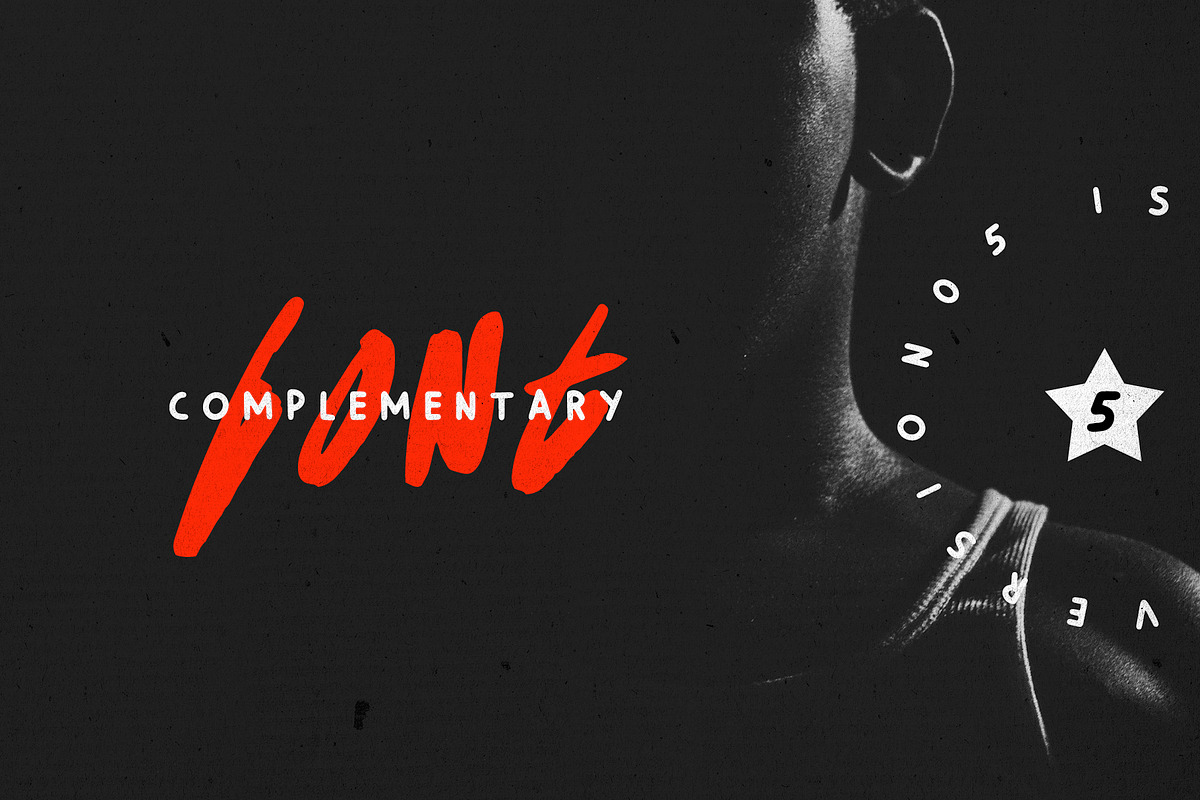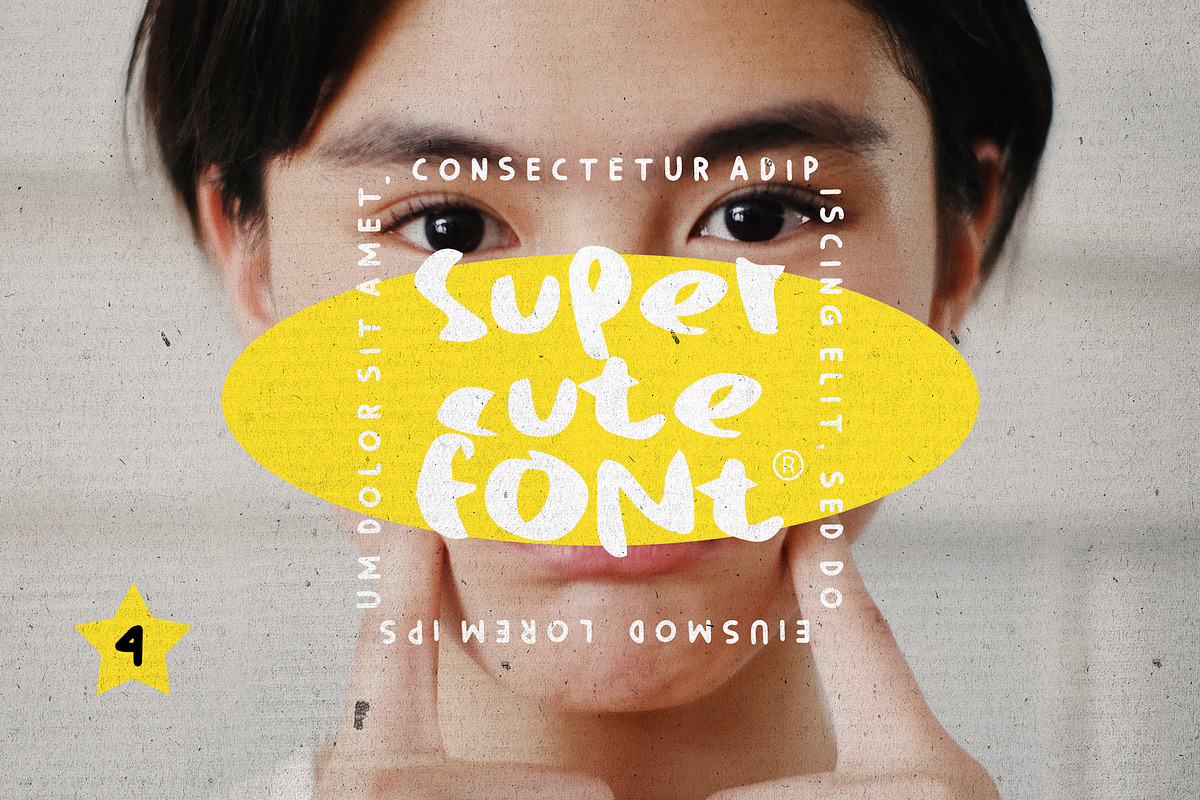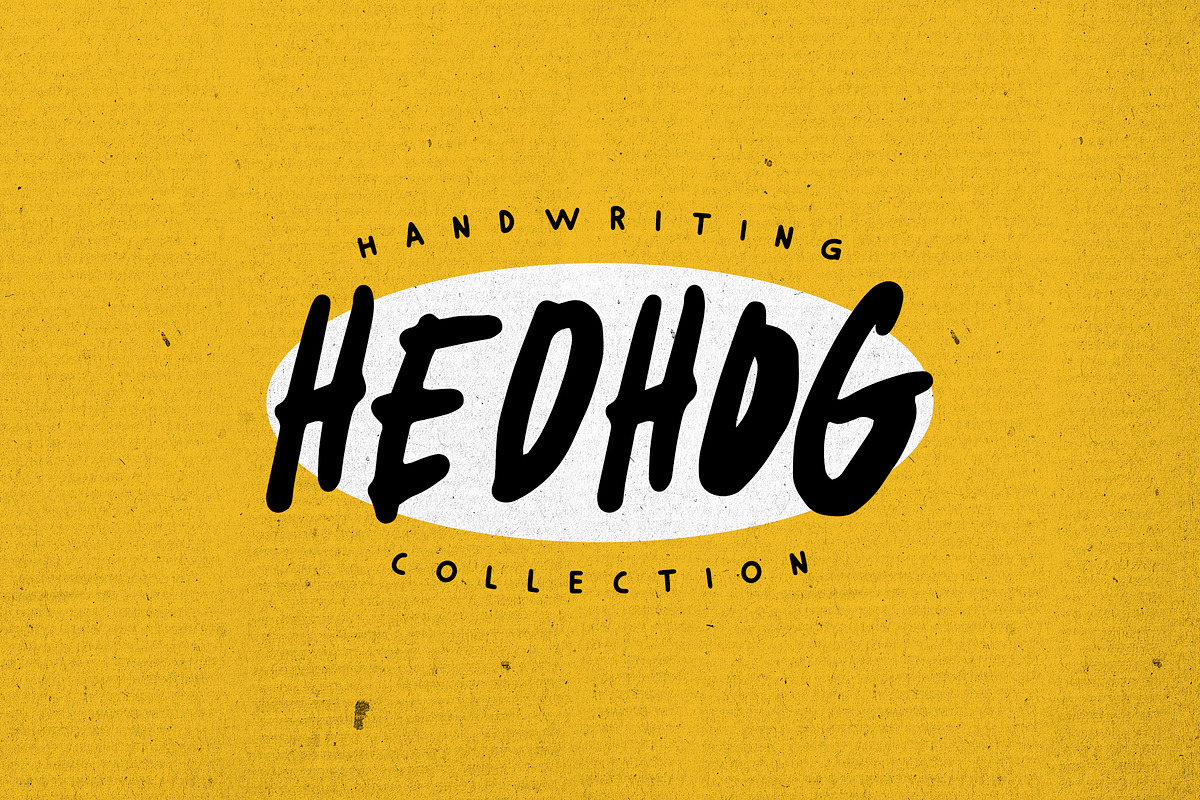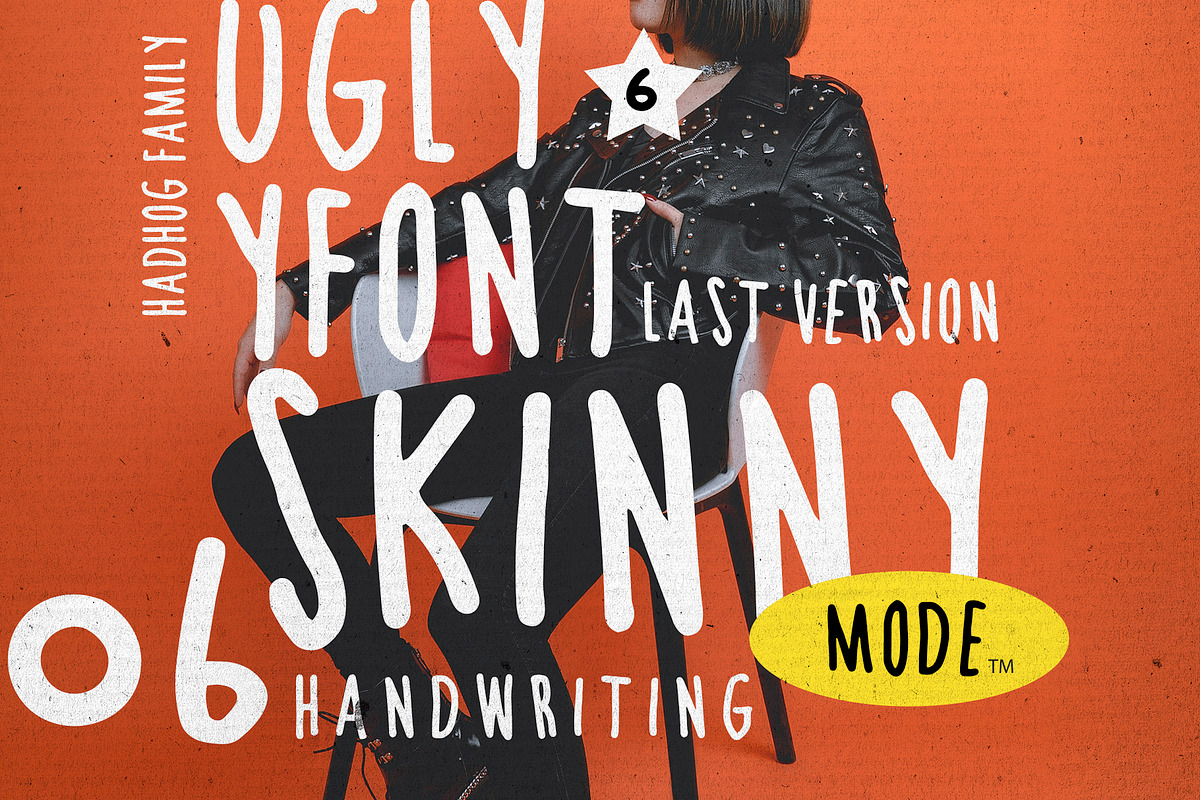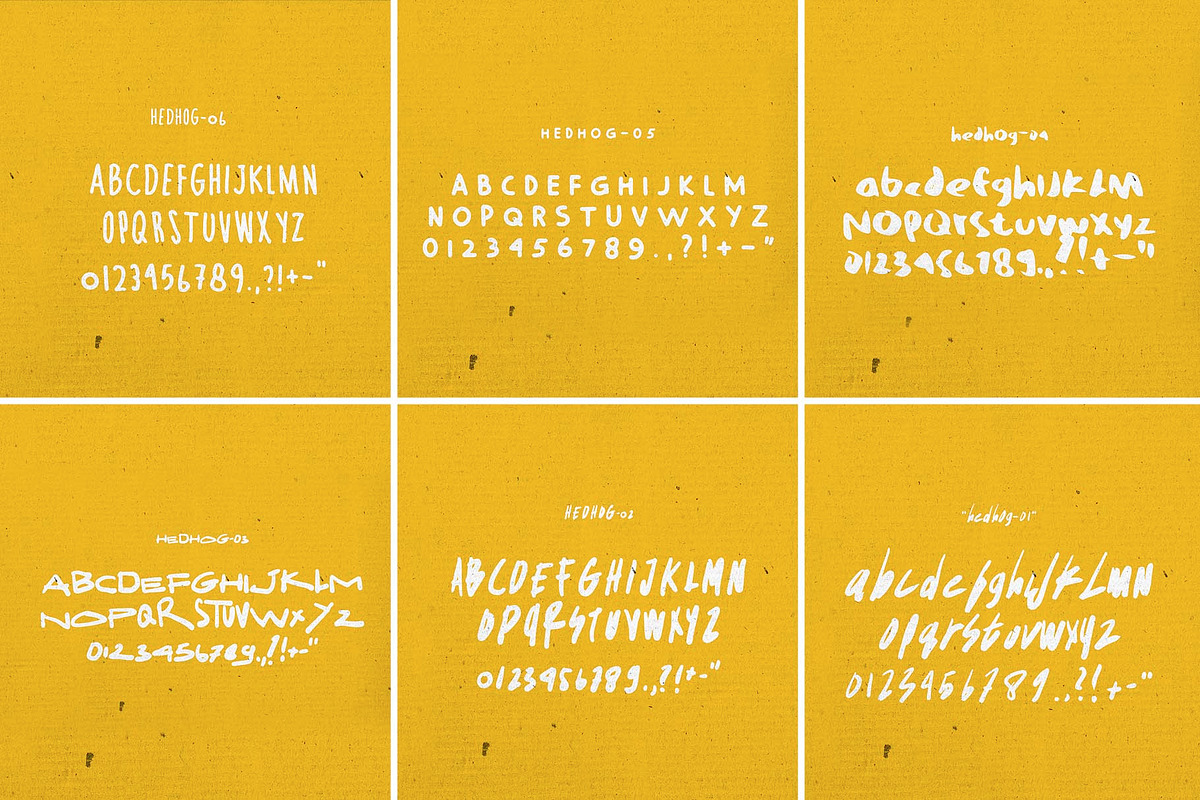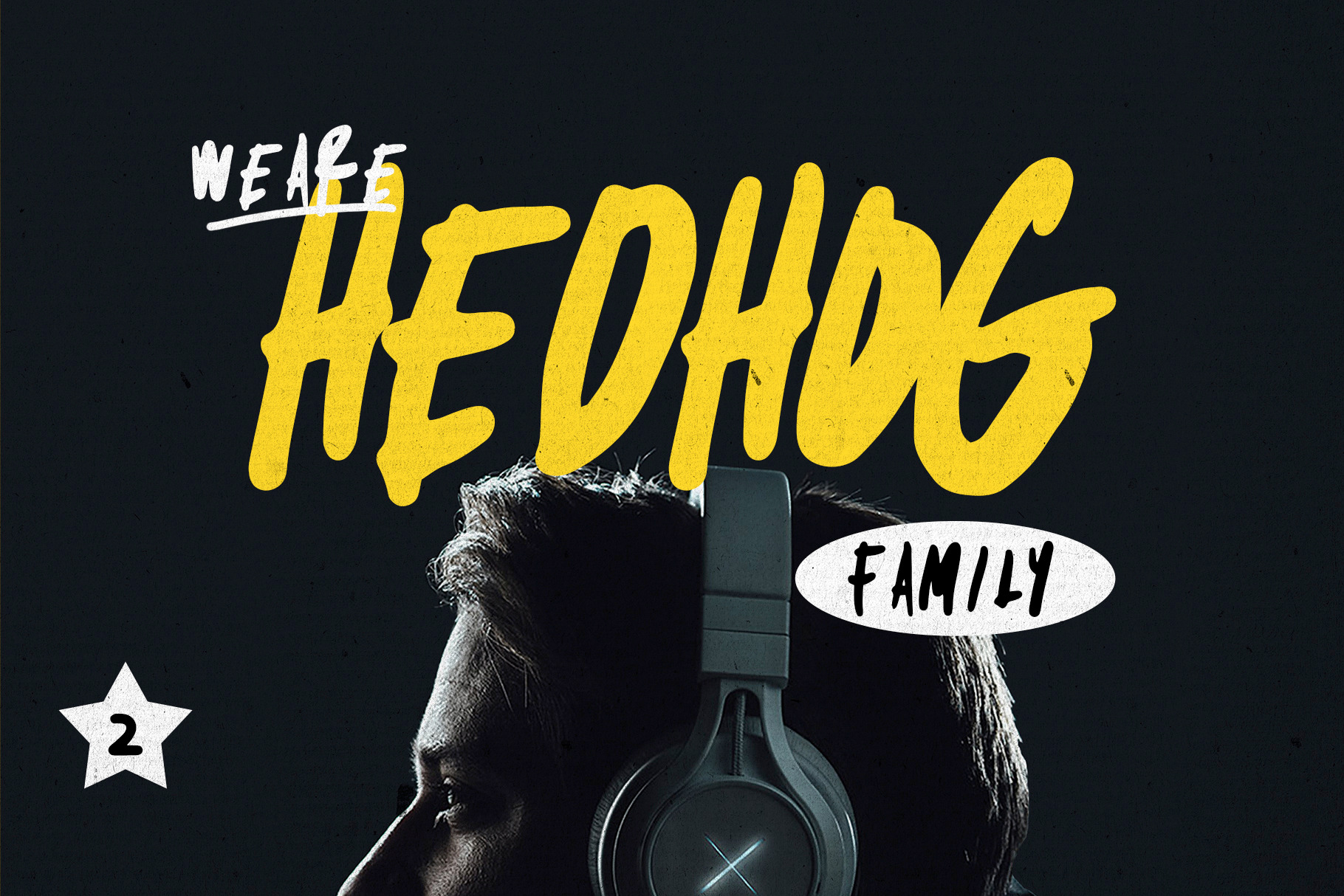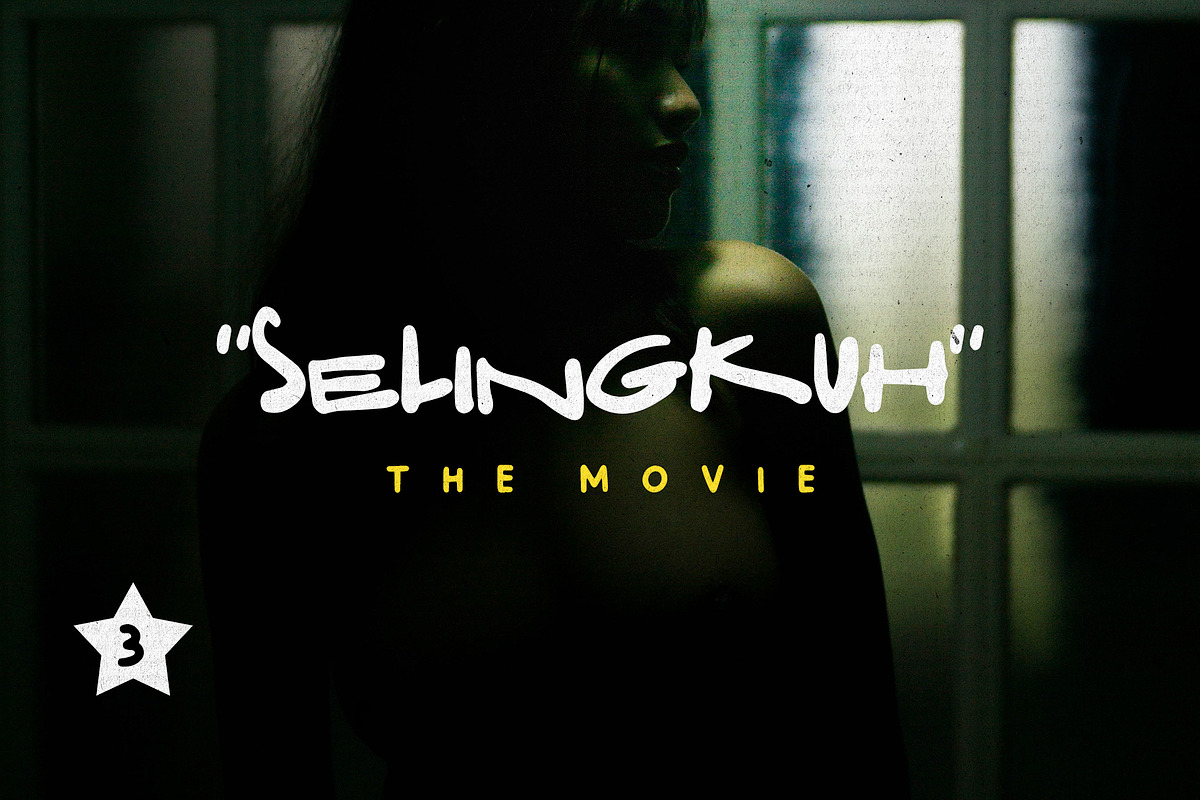
Hedhog Handwritten Font
This font was created very fun. The look is friendly and a little eccentric, you can use this to create poster designs and various other media. hedhog font in bundle with 6 interesting font packs. there are fonts for hard designs, light fonts and regular fonts. Everything can be combined according to your needs. the package contains handwritten fonts, great for those of you who are working on an underground design project. download the demo version at the link below.